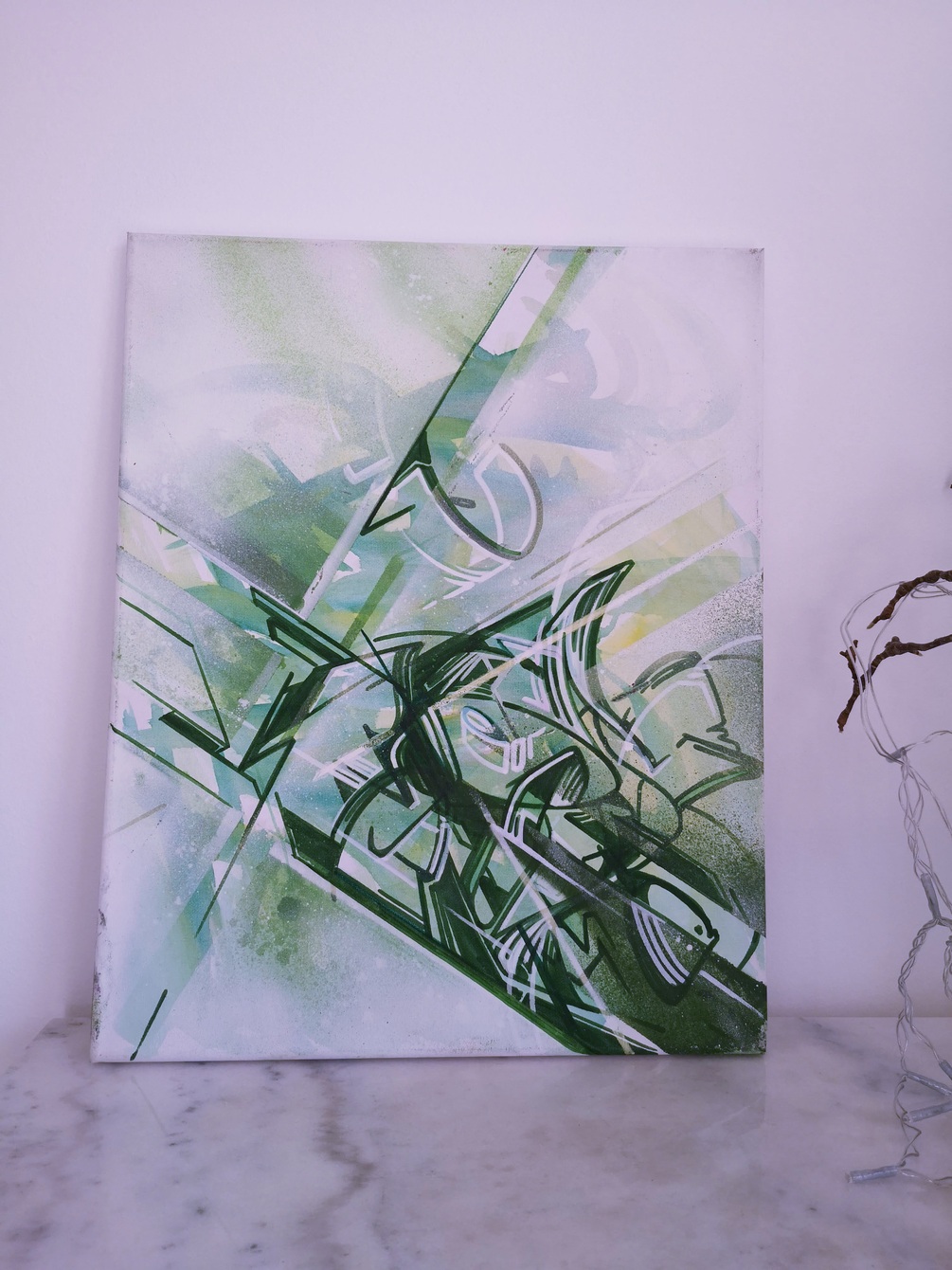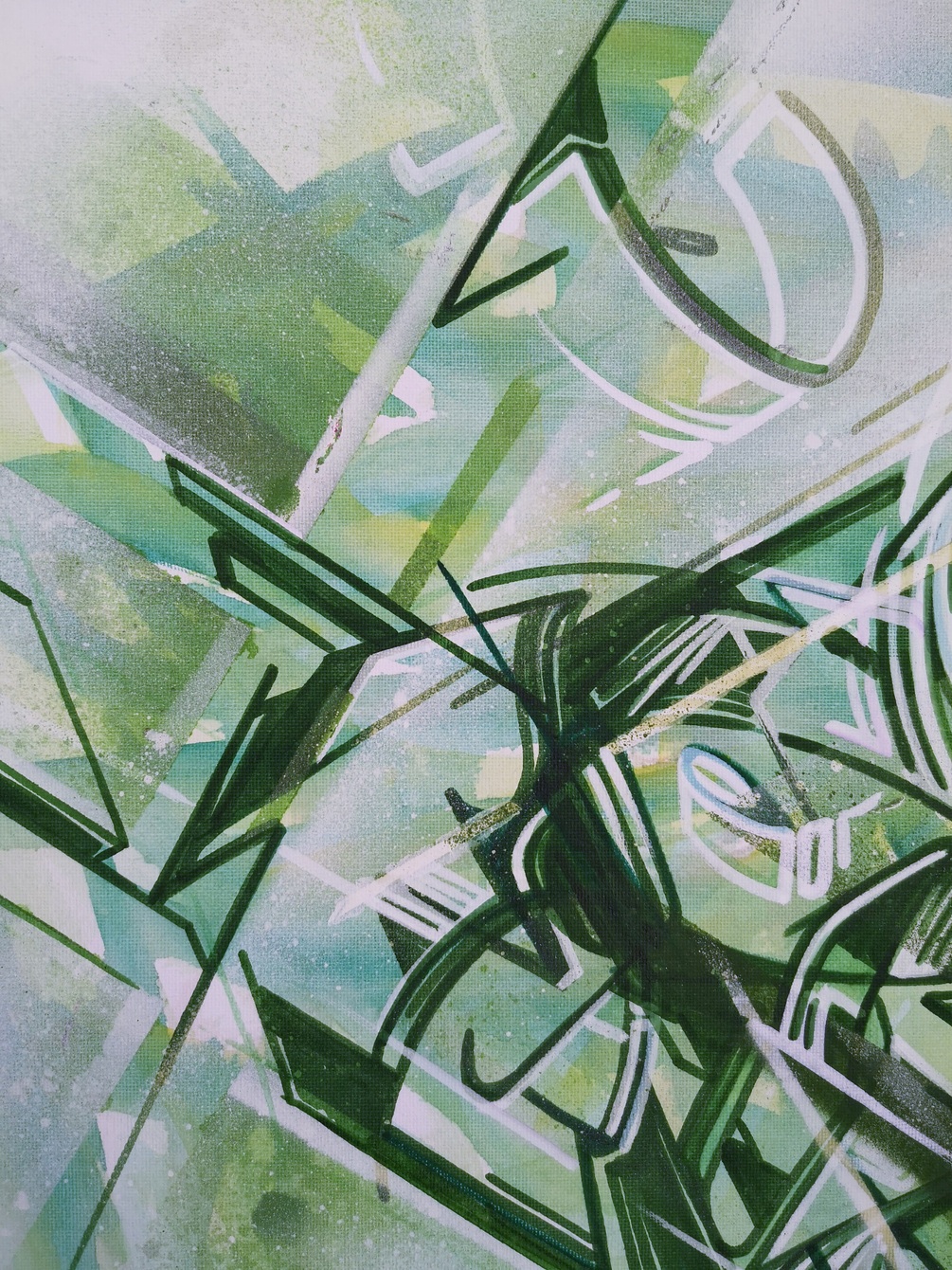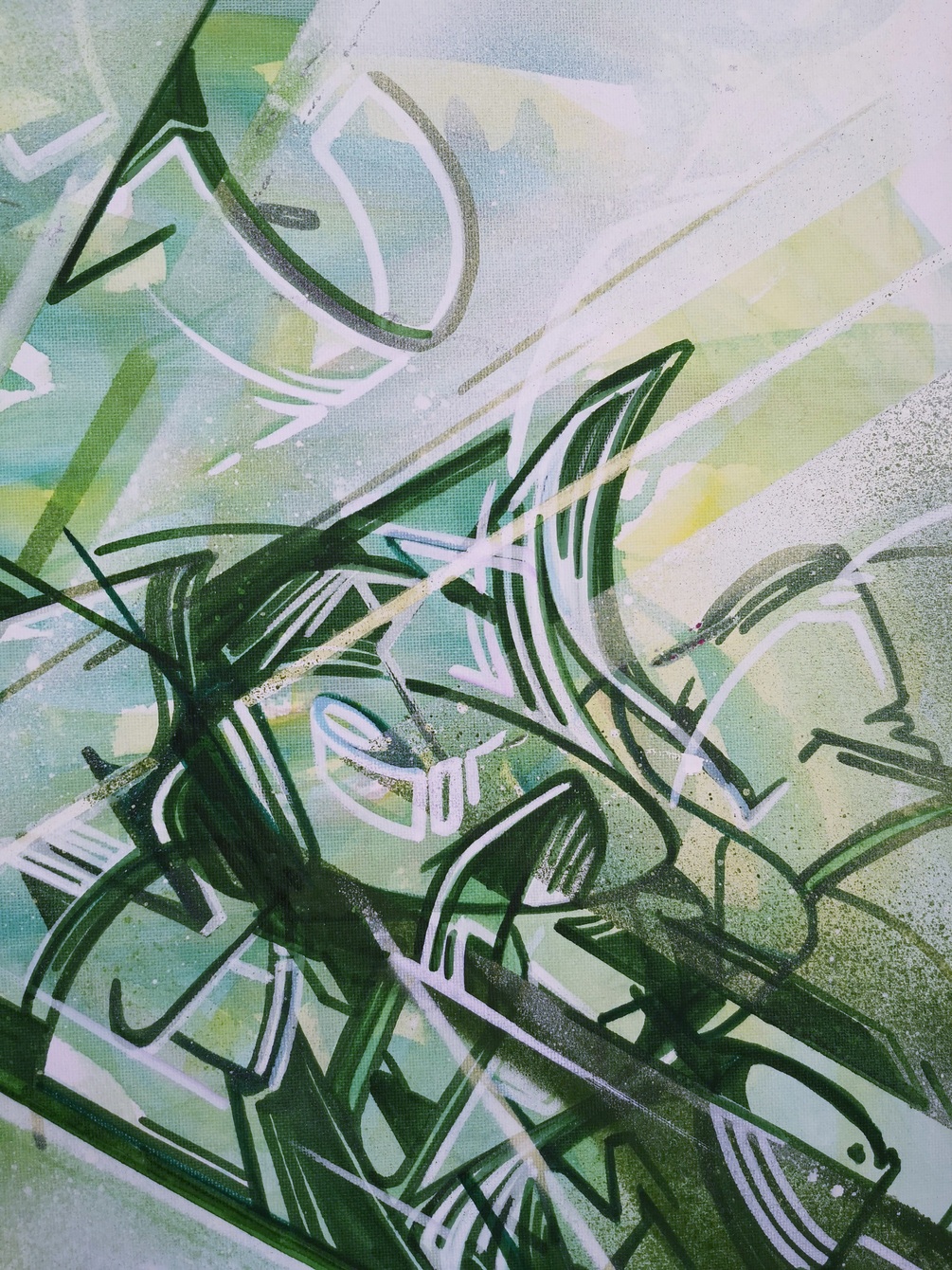
People Power
This measures 50x40cm and represents the People Power, words and actions all tangled up inside eachother.
You can not separate the power from the people or vice versa